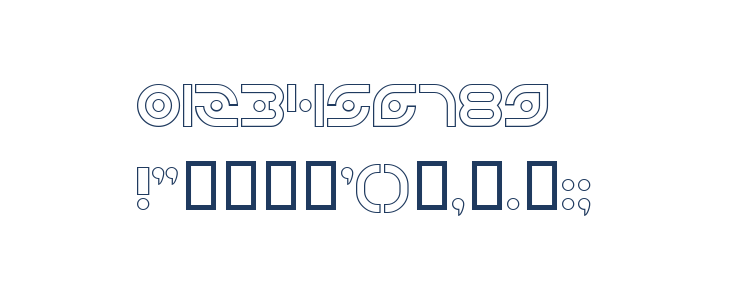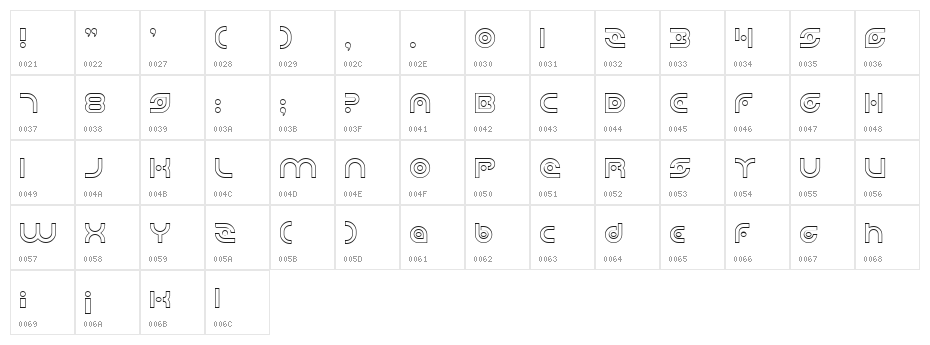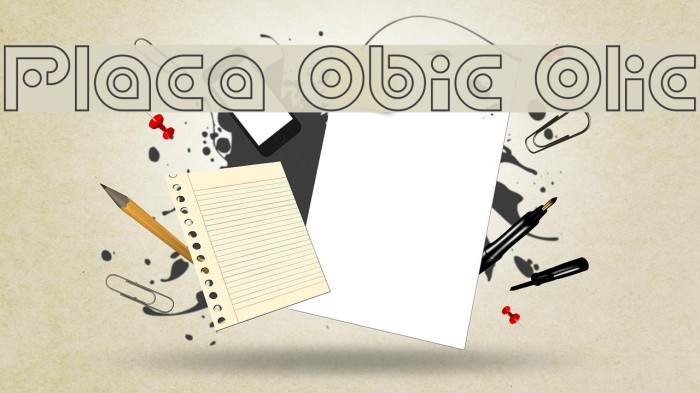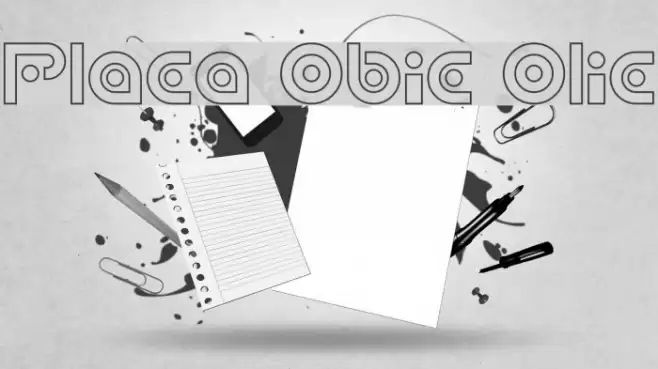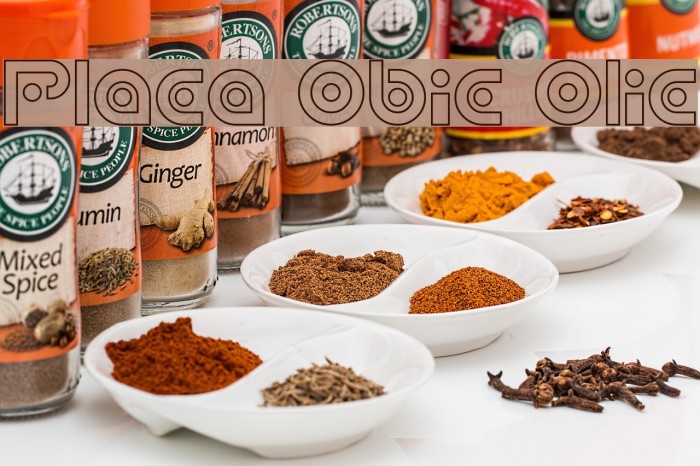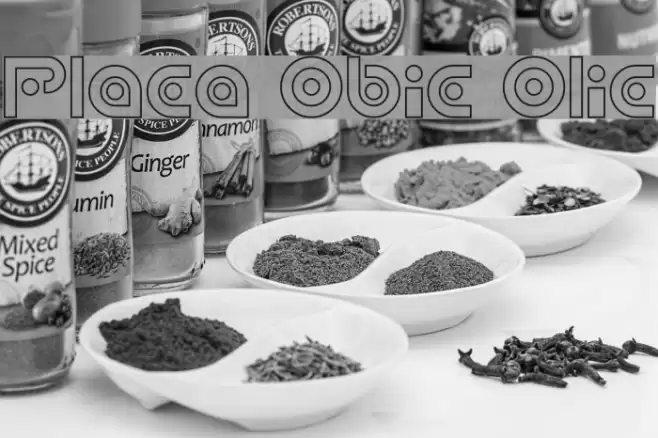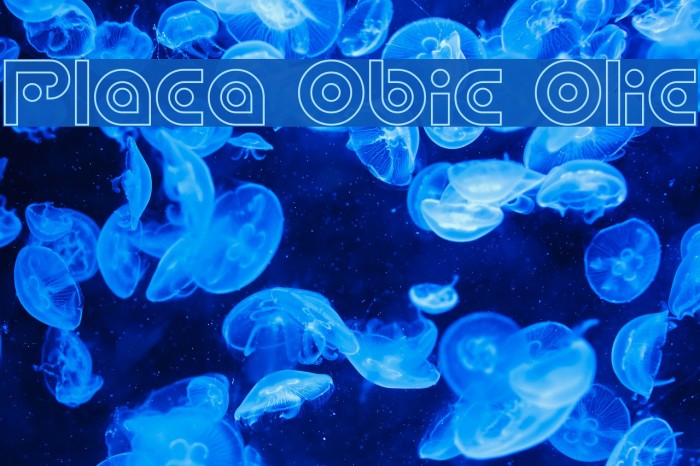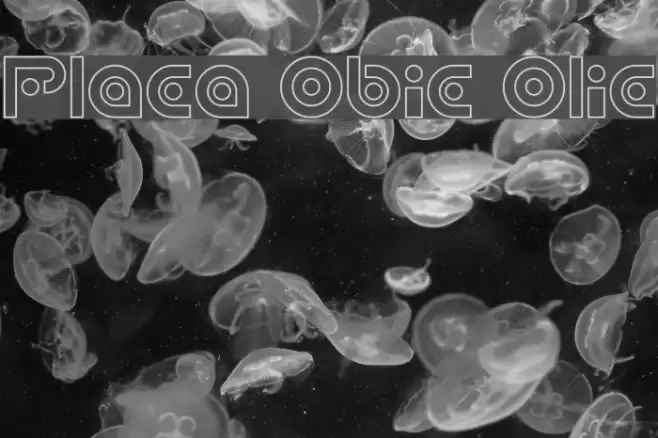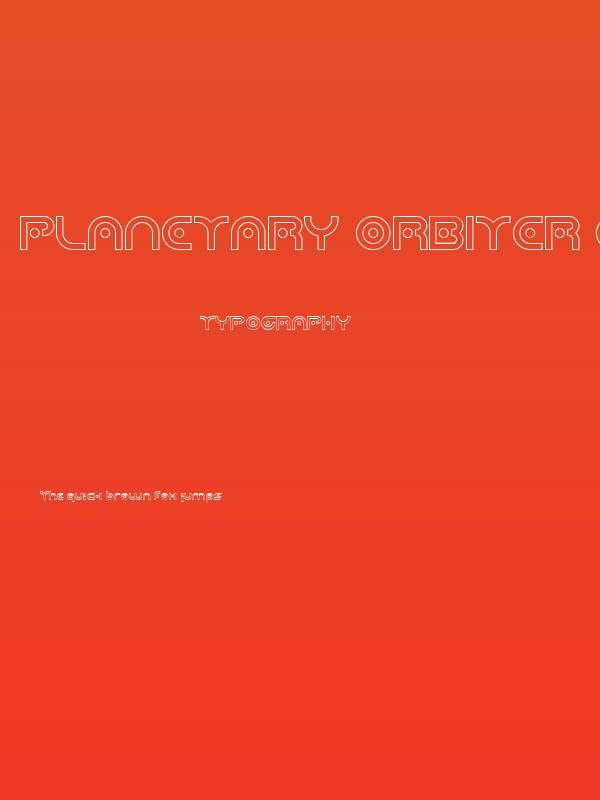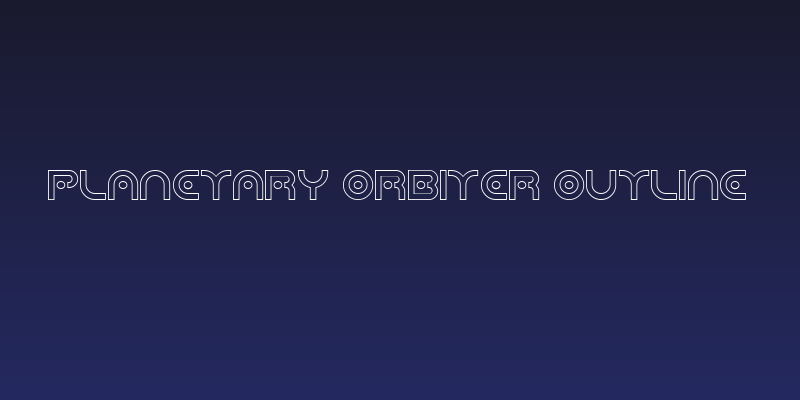
Planetary Orbiter Outline Font
Planetary Orbiter Outline Description
This font features a futuristic and geometric design with an outline style. Each character is crafted with clean lines and a consistent stroke width, giving it a modern and technical appearance. The uppercase and lowercase letters share a similar structure, emphasizing circular and angular elements that create a sense of movement and innovation. The numerals and special characters maintain this cohesive design, making the font versatile for various applications. Its unique style is both eye-catching and functional, suitable for projects that require a contemporary and sleek aesthetic.
| Proposed Projects | Ideal for sci-fi themed designs, technology branding, digital interfaces, and innovative product packaging. |